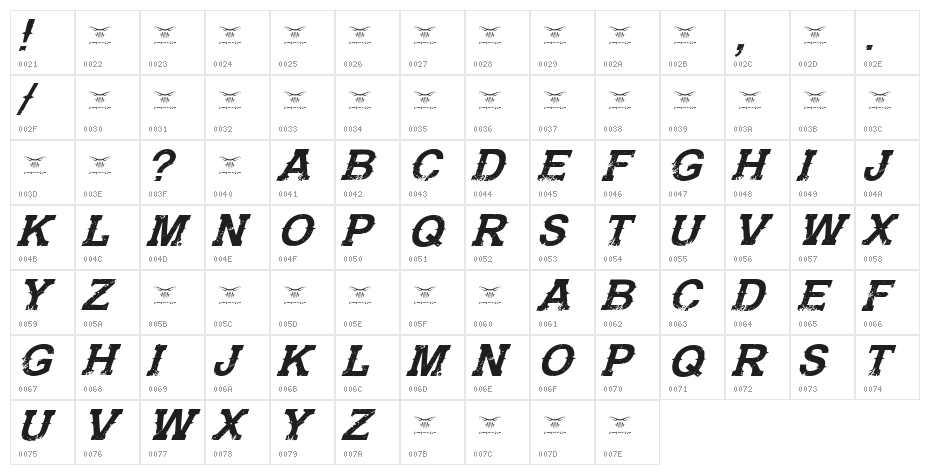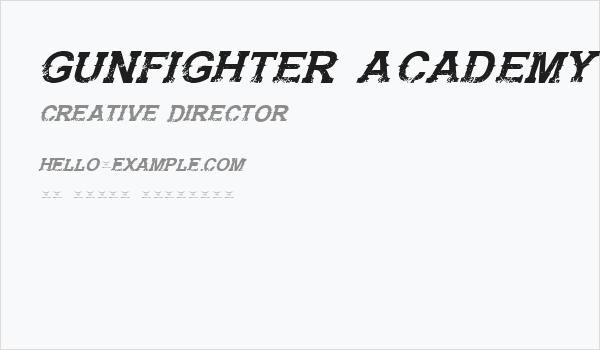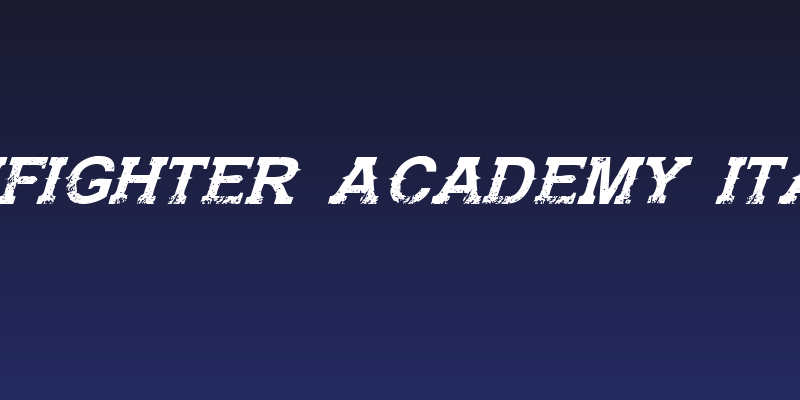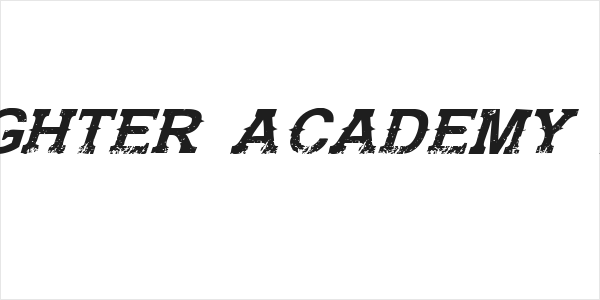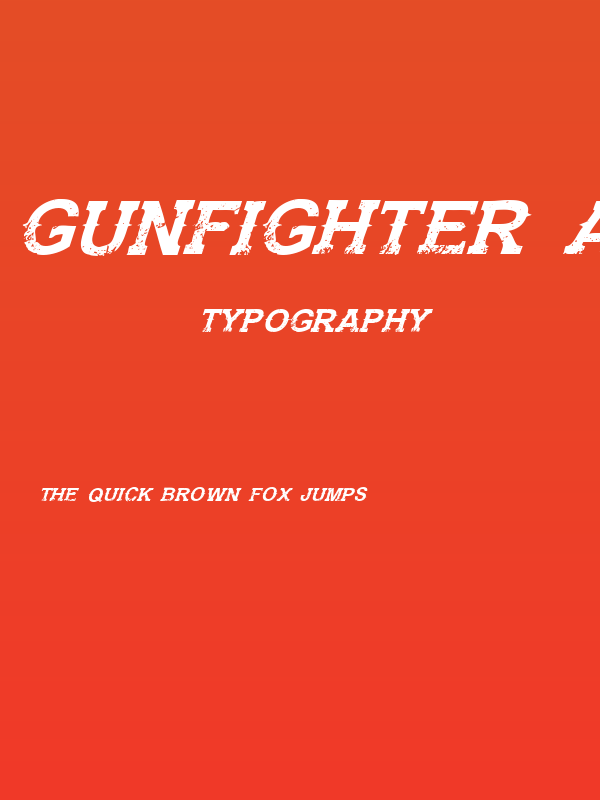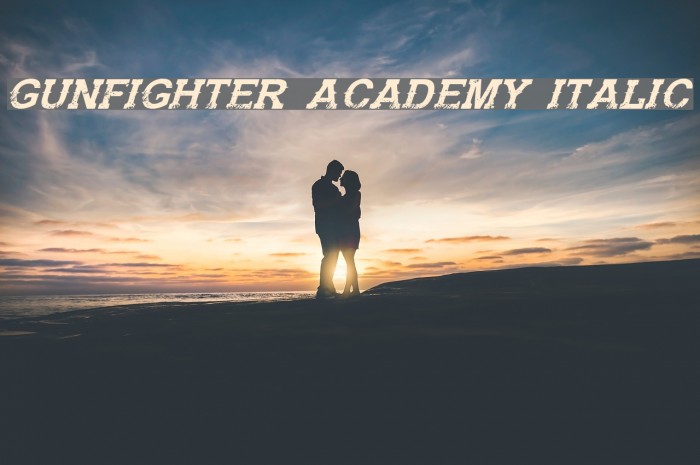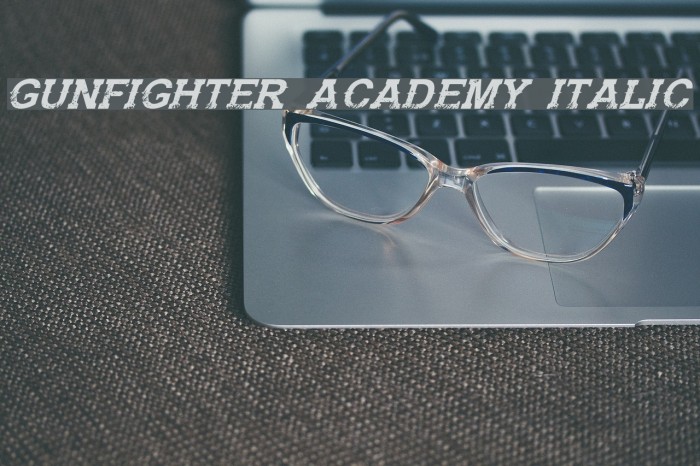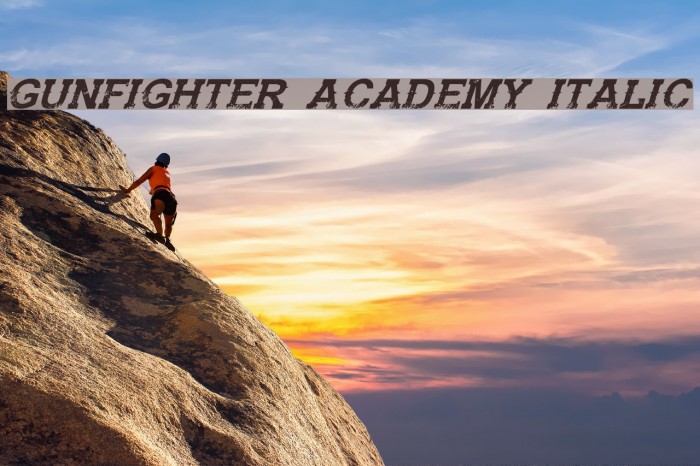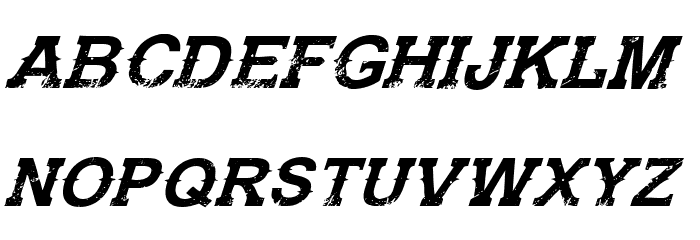
Gunfighter Academy Italic Font
Gunfighter Academy Italic Description
This font features a bold, italicized style with a distressed texture that gives it a rugged, vintage appearance. The uppercase letters are prominent and dynamic, with a slight slant that adds a sense of motion and energy. The texture appears as if the letters have been weathered or eroded, contributing to a gritty, adventurous feel. The font maintains consistent weight throughout, with medium contrast between the thick and thin strokes. The character spacing is relatively tight, enhancing its bold presence. This style is ideal for projects that require a strong, impactful visual statement.
| Overall Style | Vintage |
| Proposed Projects | Ideal for posters, logos, branding for outdoor or adventure-themed products, and any design requiring a bold, vintage aesthetic. |